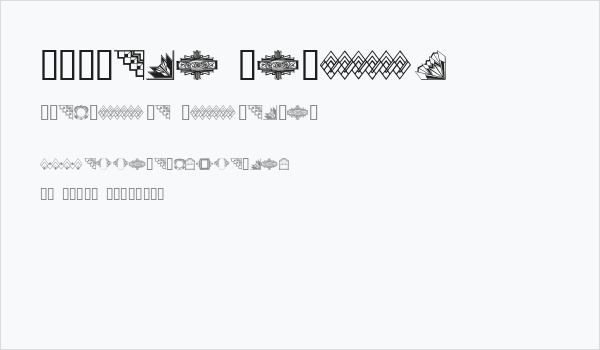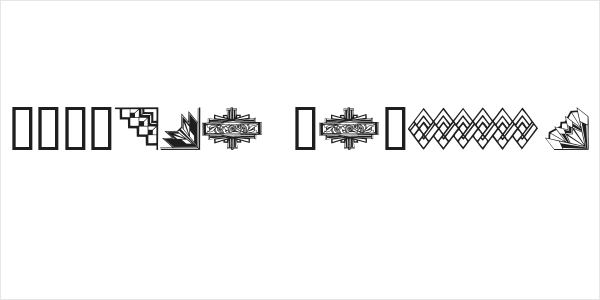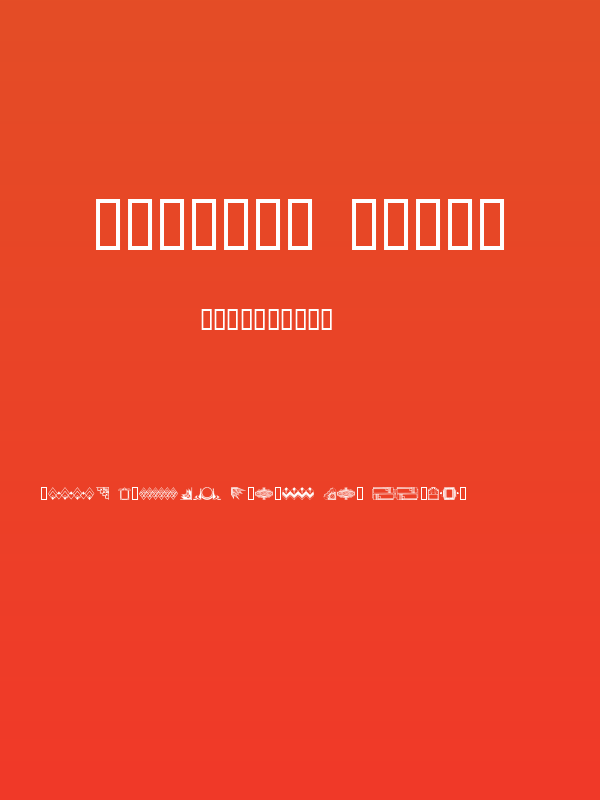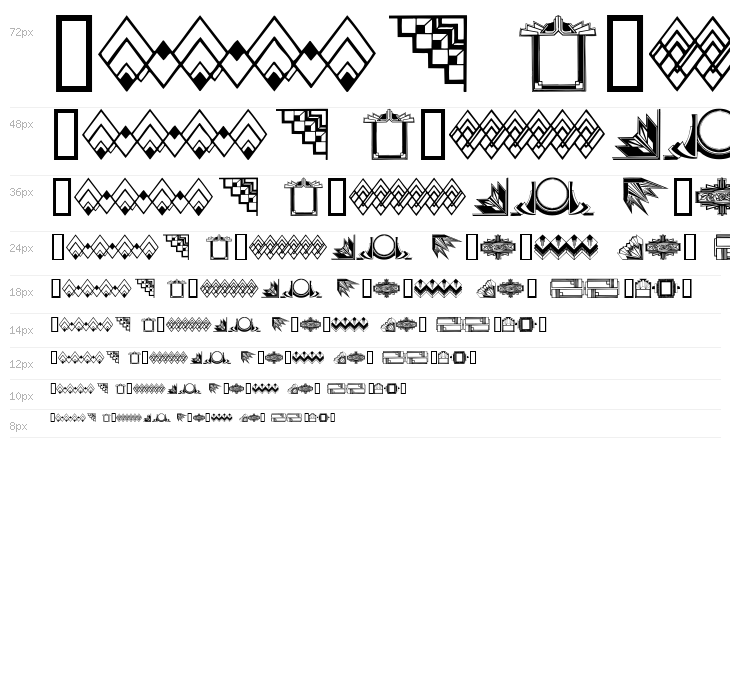
ArtDeco Motif Font
ArtDeco Motif Description
This decorative typeface is inspired by the Art Deco movement, characterized by its geometric shapes and intricate patterns. The design features bold, symmetrical motifs that are reminiscent of the 1920s and 1930s architectural and artistic styles. The font includes a variety of ornate elements, such as zigzags, chevrons, and stylized floral patterns, which are perfect for creating a vintage or retro aesthetic. Each character is crafted with attention to detail, making it suitable for projects that require a touch of elegance and sophistication.
| Use Case | Logos, Headlines, Decorative elements |
| Proposed Projects | Ideal for vintage-themed posters, invitations, branding, and packaging designs. |